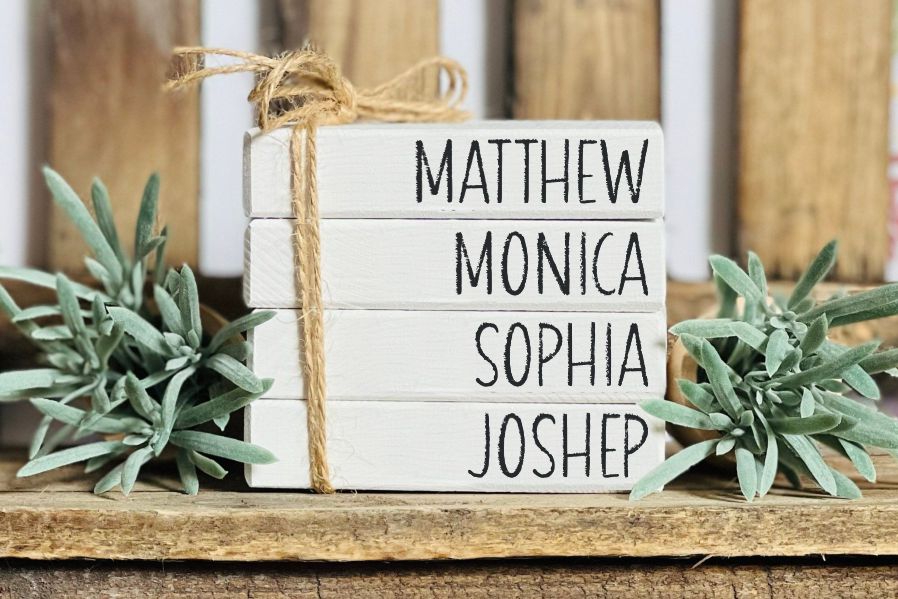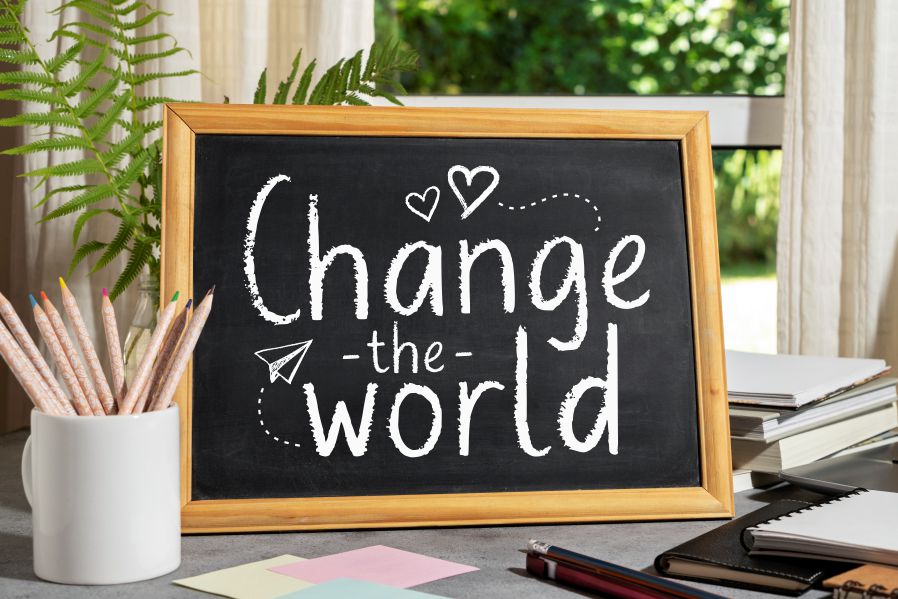
Planet Chalky Font
Planet Chalky Display Font
It’s a Handwritten Chalk Display Font. Planet Chalky is perfect for product packaging, branding project, magazines, social media, weddings, or just used to express words above the background.